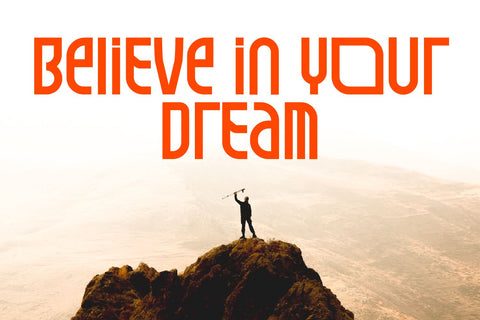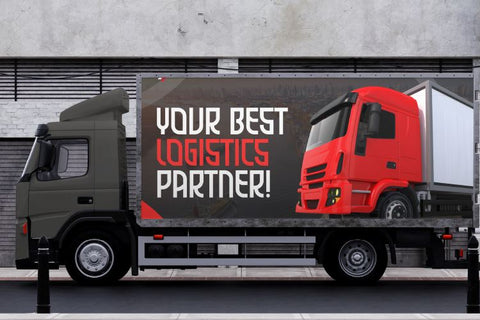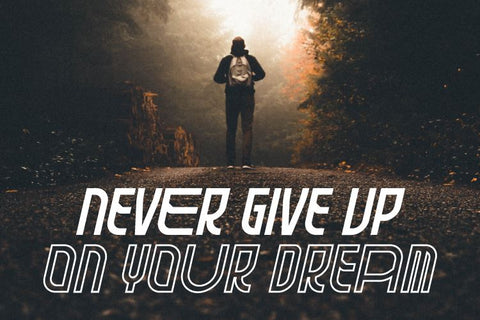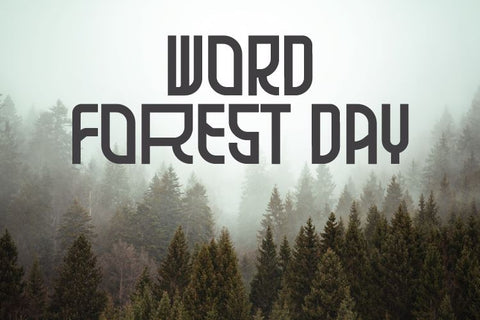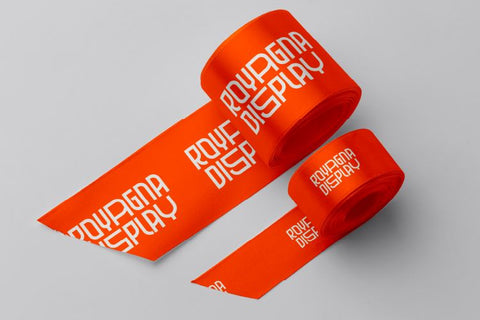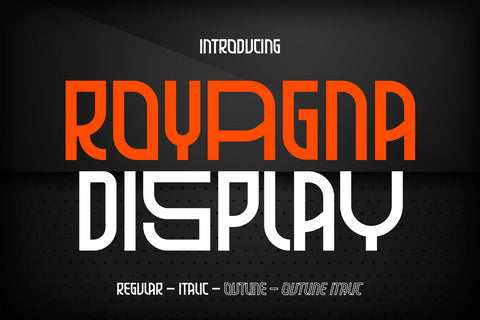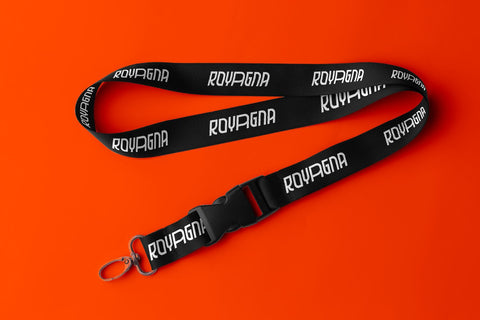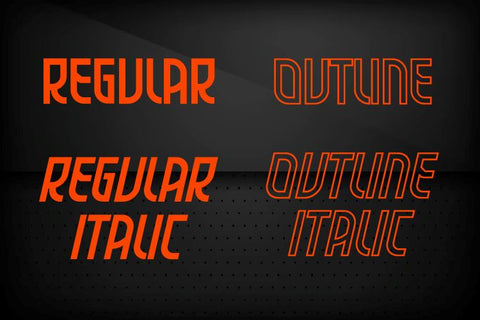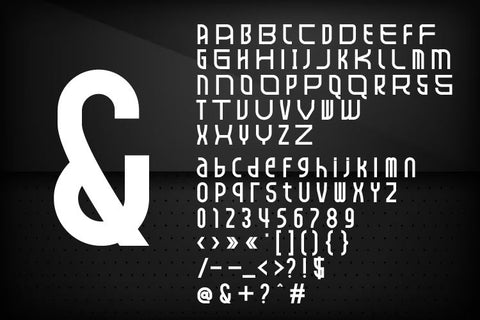
Royagna Display font
Royagna Display font. Its cool look makes it the perfect choice for logos, branding, invitations, stationery, wedding designs, social media posts, and so much more. Rayogna font is PUA encoded which means you can access all of the glyphs.
- Alternate Characters
- Numbers and punctuation
- Multilingual